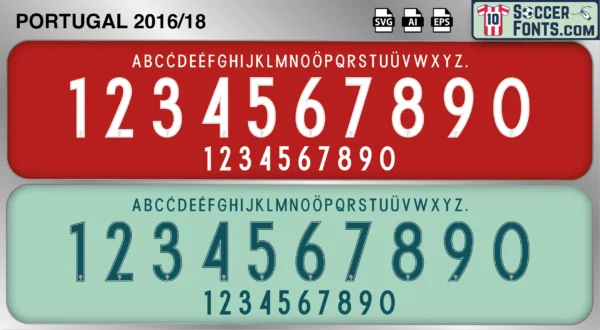
Portugal 2016-18 Font
The Portugal 2016-18 font is an editable soccer jersey lettering design in vector format inspired by the Portugal kit style used during the 2016-18 football seasons. This football font artwork is prepared for football shirt recreations, custom jersey projects, football kit mockups and sports graphic design workflows.
The 2016-18 period became one of the most celebrated eras in the history of the Portugal national team. Portugal arrived at UEFA EURO 2016 in France with a squad led by Cristiano Ronaldo and supported by players such as Nani, Pepe, Ricardo Quaresma, João Mário, Adrien Silva and Rui Patrício. Although the team advanced from the group stage without recording a victory, Portugal grew stronger throughout the knockout rounds. Victories against Croatia, Poland and Wales secured a place in the final against hosts France. Despite Ronaldo leaving the match early through injury, Portugal achieved a historic victory thanks to Eder’s extra-time goal, securing the country’s first major international trophy.
The Portugal 2016-18 font became associated with the most successful chapter in Portuguese football history and the period immediately following that achievement. Portugal followed its European Championship triumph by winning the 2018 FIFA World Cup qualification group and also captured the 2017 FIFA Confederations Cup third-place finish. The squad blended experienced leaders with younger talents such as Bernardo Silva, André Silva and João Cancelo, helping shape the future of the national team. Portugal shirts from the 2016-18 era remain among the most collectible modern international kits because of their connection to the UEFA EURO 2016 triumph, Cristiano Ronaldo’s captaincy and the nation’s breakthrough moment at the highest level of European football. The Portugal 2016-18 font remains closely linked to that unforgettable championship-winning generation.